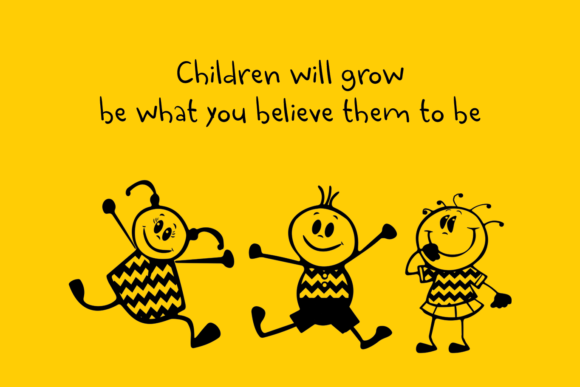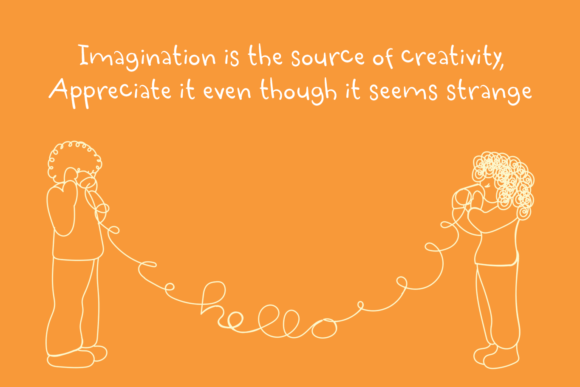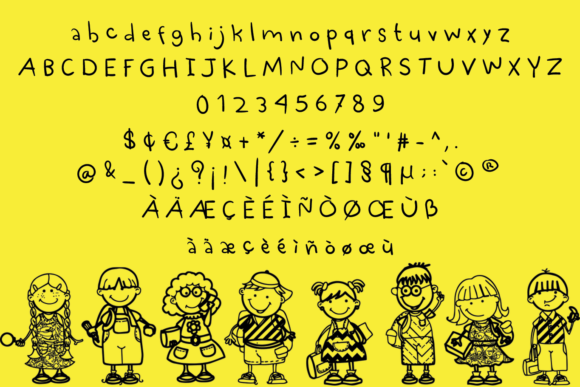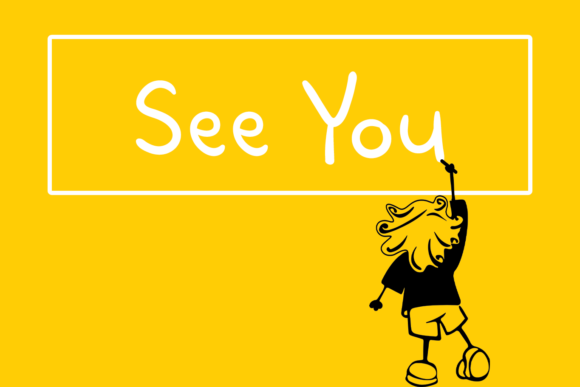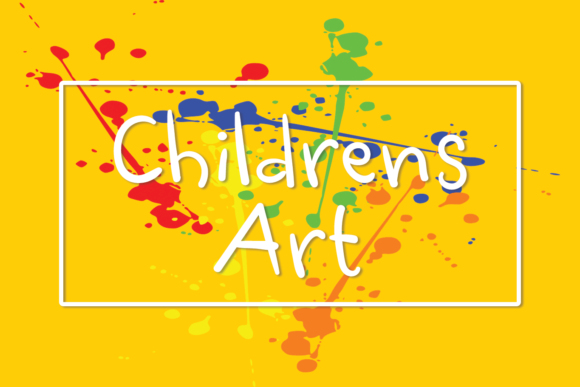
Introducing Children’s Art Font: A Whimsical and Friendly Handwritten Font for Designers and Crafters
Are you a designer or crafter looking for a unique and playful font to add a personal touch to your designs? Look no further than Children’s Art Font, a whimsical and friendly handwritten font that’s perfect for chalkboard quotes, teaching materials, and more. In this article, we’ll explore the features and benefits of Children’s Art Font, and show you how to make the most of this versatile and charming font.
What is Children’s Art Font?
Children’s Art Font is a handwritten font designed to mimic the authentic look of children’s art. Its playful and whimsical style makes it perfect for designs that require a personal and realistic feel. The font features irregular lettering, uneven baseline, and a dash of playfulness, giving it a unique and charming character.
Key Features of Children’s Art Font
- Whimsical and friendly design: Children’s Art Font features a playful and whimsical design that’s perfect for creating fun and engaging designs.
- Authentic look: The font’s irregular lettering and uneven baseline give it an authentic look that’s reminiscent of children’s art.
- Handwritten style: The font’s handwritten style makes it perfect for chalkboard quotes, teaching materials, and other designs that require a personal touch.
- Versatile: Children’s Art Font can be used for a wide range of designs, from educational materials to crafts and DIY projects.
Benefits of Using Children’s Art Font
So why choose Children’s Art Font for your designs? Here are just a few benefits of using this versatile and charming font:
- Adds a personal touch: Children’s Art Font’s handwritten style and whimsical design add a personal touch to your designs, making them more engaging and relatable.
- Perfect for educational materials: The font’s authentic look and playful style make it perfect for educational materials, such as chalkboard quotes, worksheets, and activity sheets.
- Great for crafts and DIY projects: Children’s Art Font is also great for crafts and DIY projects, such as making signs, banners, and other decorative items.
- Easily readable: Despite its playful style, Children’s Art Font is easily readable, making it perfect for designs that require a clear and concise message.
How to Use Children’s Art Font
Using Children’s Art Font is easy! Here are a few tips to get you started:
- Pair with other fonts: Children’s Art Font pairs well with other fonts, such as serif and sans-serif fonts. Experiment with different font combinations to create unique and interesting designs.
- Use for headings and titles: The font’s playful style makes it perfect for headings and titles. Use it to add a pop of personality to your designs.
- Add embellishments: Children’s Art Font looks great with embellishments, such as stickers, stamps, and other graphics. Experiment with different embellishments to add visual interest to your designs.
Children’s Art Font is a whimsical and friendly handwritten font that’s perfect for designers and crafters looking to add a personal touch to their designs. Its authentic look, playful style, and versatility make it a great choice for a wide range of designs, from educational materials to crafts and DIY projects. With its easily readable style and endless possibilities for customization, Children’s Art Font is a must-have font for any designer or crafter looking to create unique and engaging designs.